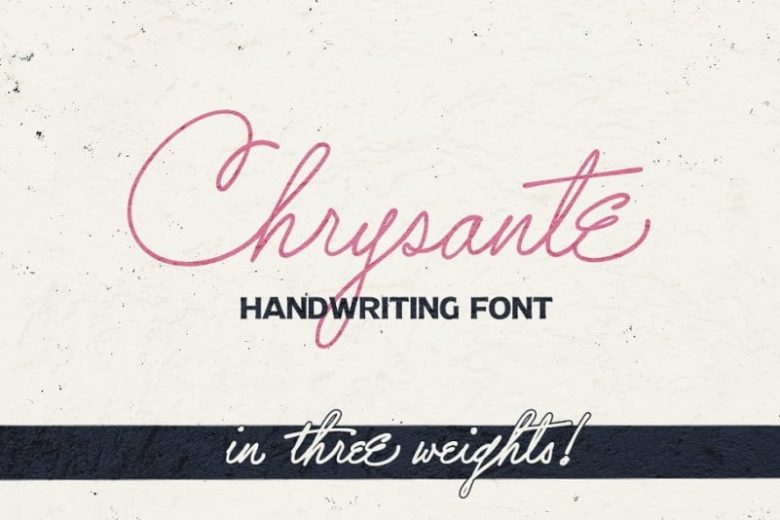
Chrysante Handwritten Font
Chrysante Font– a stylish signature font is a handwritten script font with a clear and luxurious style, this font is great for your next creative projects such as logos, printed quotes, invitations, cards, product packaging, headers, logotypes, letterheads, posters, clothing designs, labels, etc. .
Chrysante comes with uppercase letters, lowercase letters,alternate lowercase letters, numbers, punctuation and multilingual support characters also including alternative opentype and general ligatures.